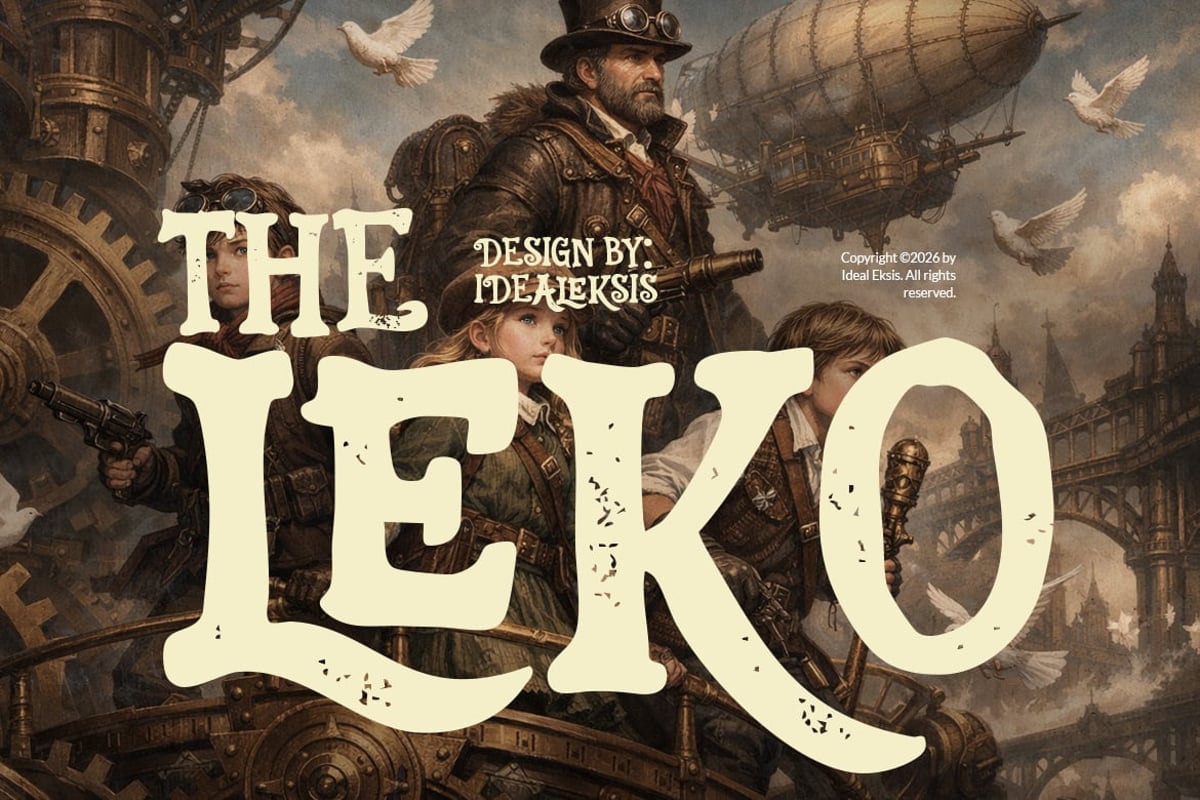
The Leko - Steampunk font
Command attention with The Leko, a powerhouse steampunk typeface that merges Victorian elegance with industrial might.
This bold display typeface is characterized by its heavy weight and industrial-inspired letterforms. It features thick, blocky stems and prominent slab serifs with softened corners, evoking a sense of mechanical strength.